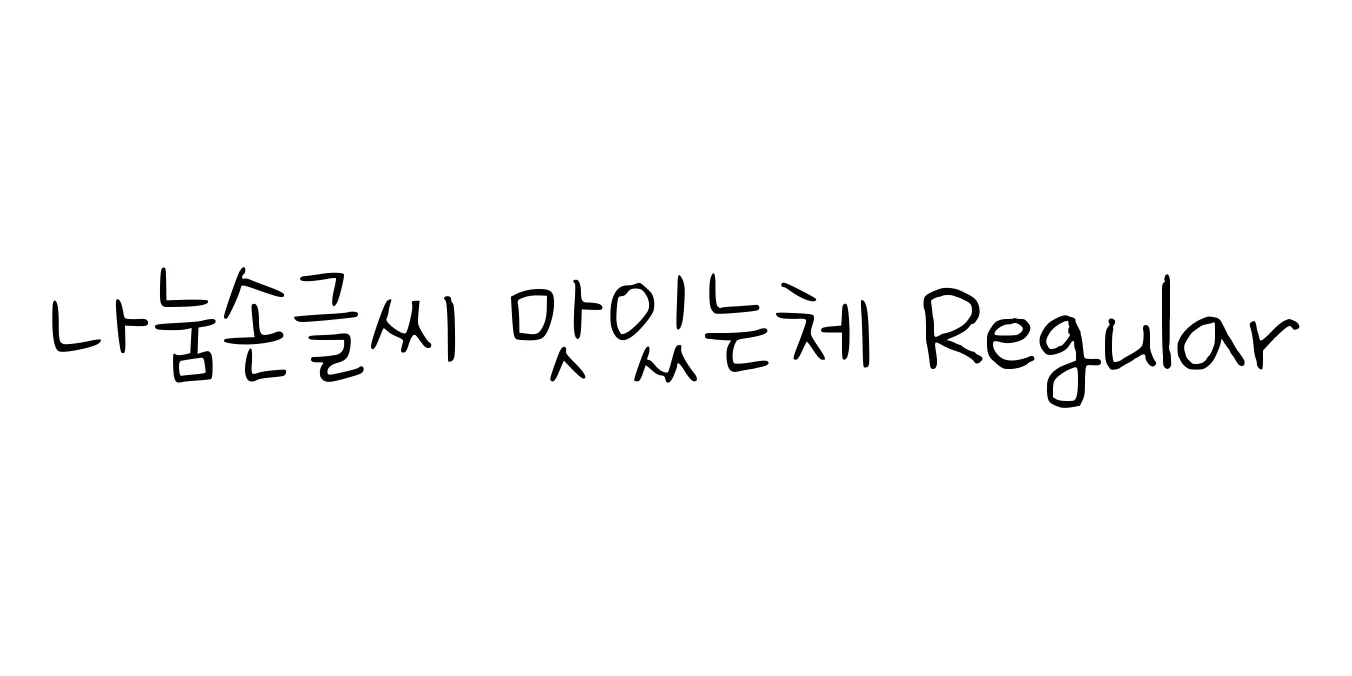
나눔손글씨 맛있는체 Regular
Designed by Naver (Clova AI)
| Category | Handwriting |
| Designer | Naver (Clova AI) |
| Similar Fonts | Nanum Handwriting Pen, Kyobo Handwriting 2019, Cafe24 Oh-dang-gi |
나눔손글씨 맛있는체 Regular (Nanum Handwriting Tasty) is a unique typeface developed as part of Naver's 'Nanum Handwriting' project. This initiative used AI technology to transform the diverse handwriting styles of real people into digital fonts. This specific font captures the natural and rhythmic strokes of an individual's handwriting, preserving the subtle irregularities and warmth of a pen-written note.
The Tasty variant is characterized by its energetic and informal look, resembling the handwriting one might find in a handwritten recipe book or a friendly letter. Its slender, flowing lines make it highly legible while maintaining a distinct personal charm, making it a favorite for designers looking to add a human touch to digital environments.
나눔손글씨 맛있는체 Regular Best Uses
Perfect for recipe cards, restaurant menus, and food packaging design.
Excellent for relatable Instagram stories, YouTube thumbnails, and personal vlogs.
Ideal for digital journals, greeting cards, and personalized invitations.
Great for pull quotes or casual sidebars in lifestyle magazines.